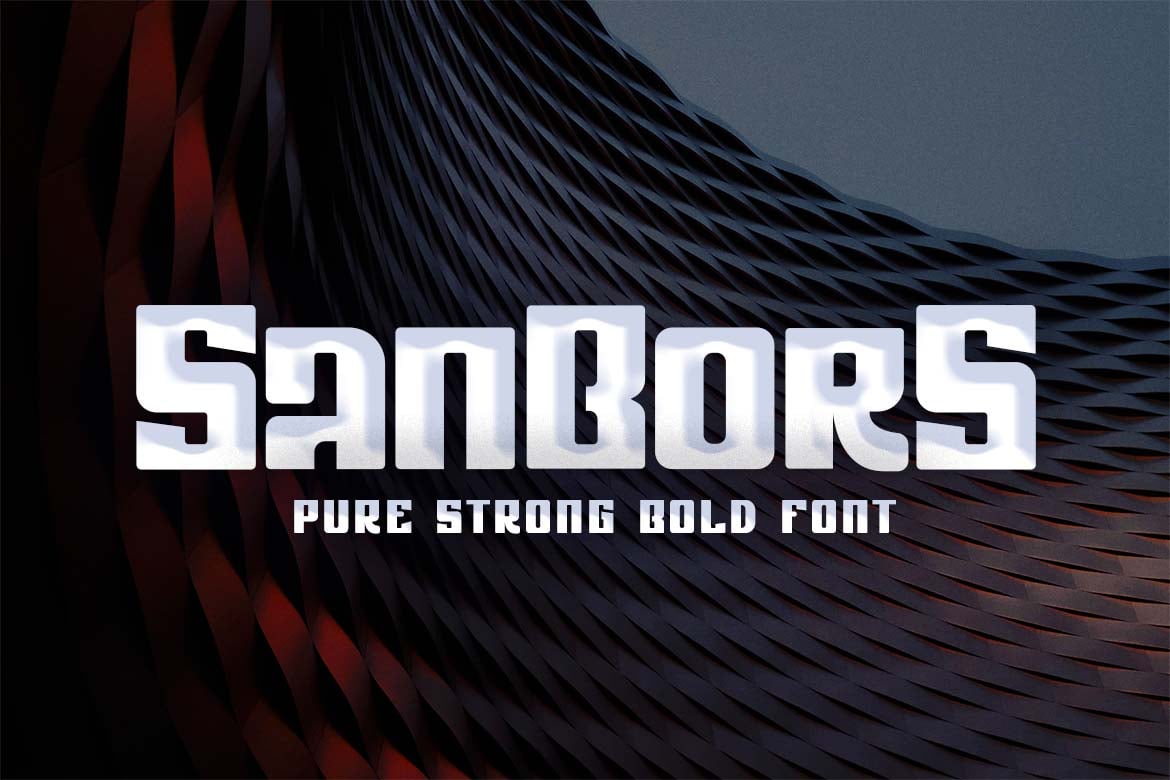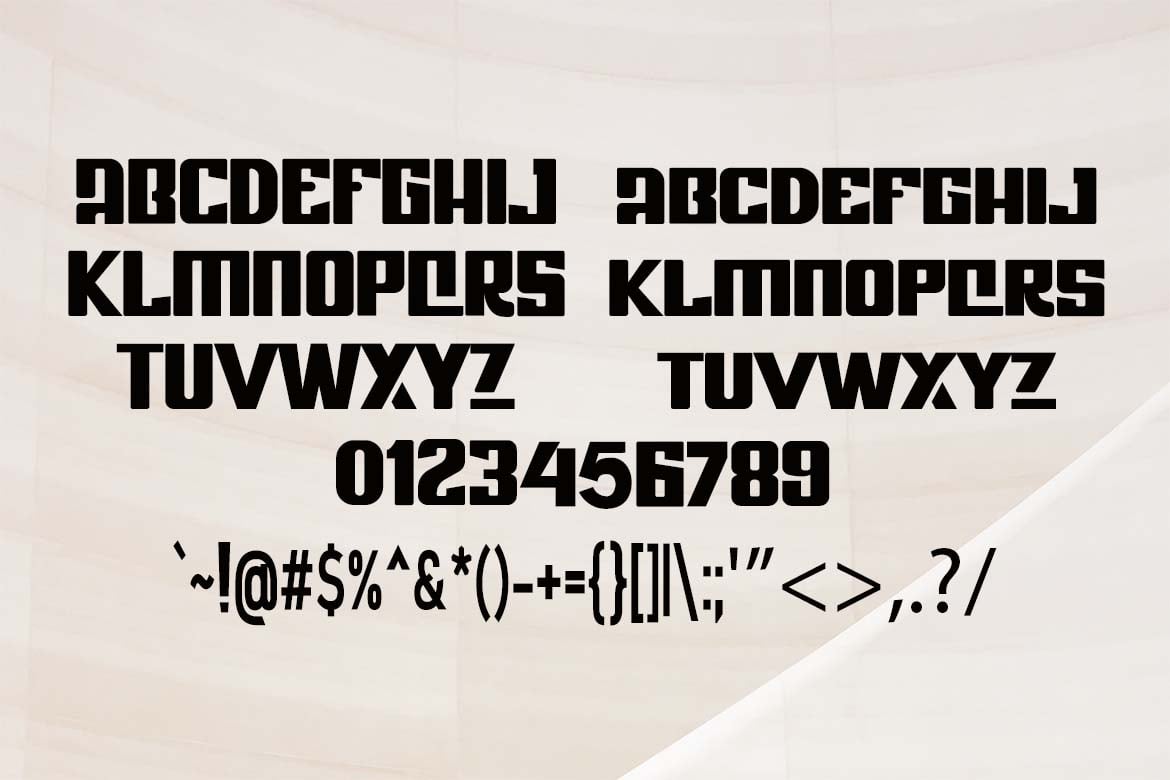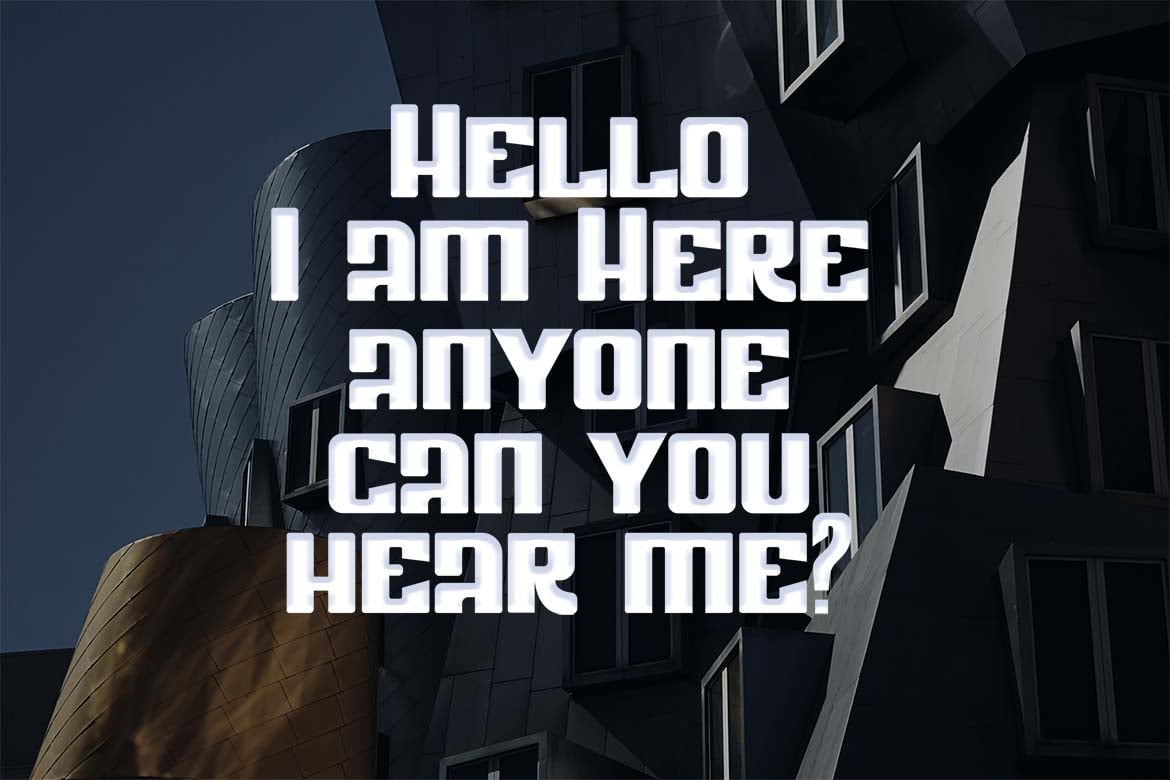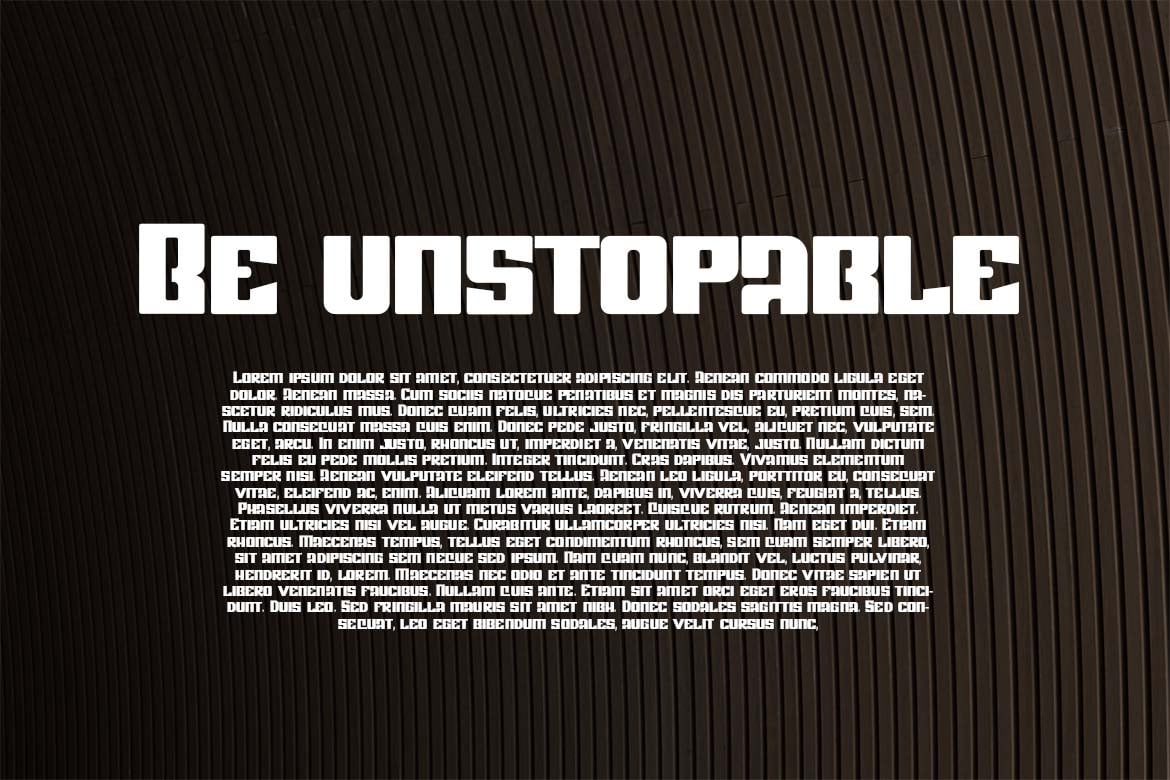
Sanbors – Bold Font
Introducing Sanbors, a bold display font. Its unique and strong feel.
So perfect for you who needs a typeface for logo designs, magazine, social media, brochure, and many more.
- Alternate of uppercase
- Numerals